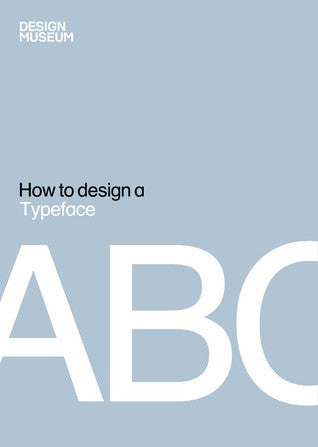
How To Design A Typeface
How to Design a Typeface tells you everything you need to know and looks at the principles and processes of designing type, from its historical roots and interaction with materials and techniques to developing digitized type for modern use.
In a working case study Jonathan Barnbrook, one of the world's foremost typographers, traces the design and development of his typeface Priori from start to finish and reveals what it takes to create a successful design.
Insightful guide for aspiring typeface designers and enthusiasts.
This book is perfect if you're curious about how typefaces are born, blending historical context with modern techniques. Jonathan Barnbrook's real-world case study offers invaluable insights into the creative and technical journey of creating a successful font. It's a must-have for anyone interested in typography and design.